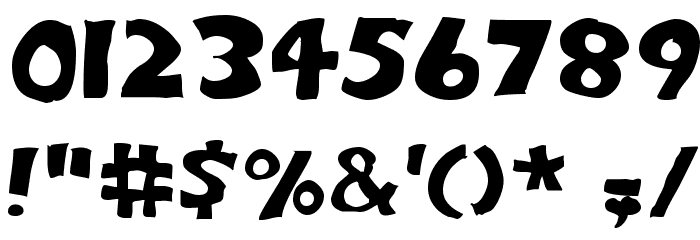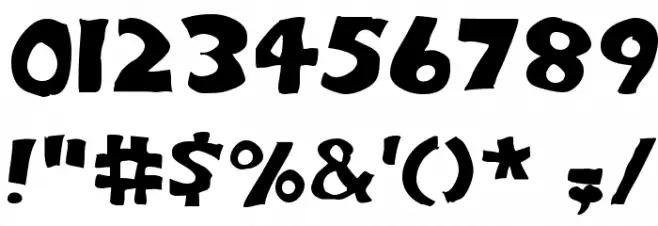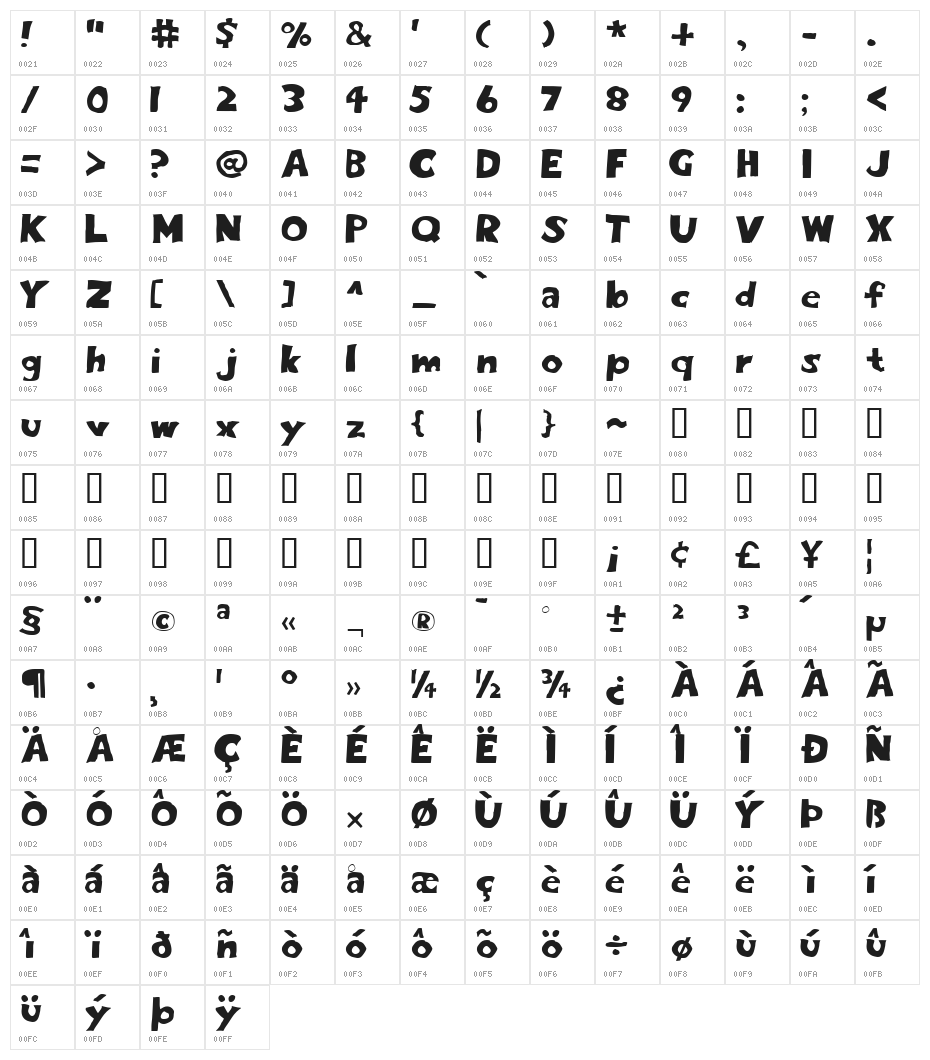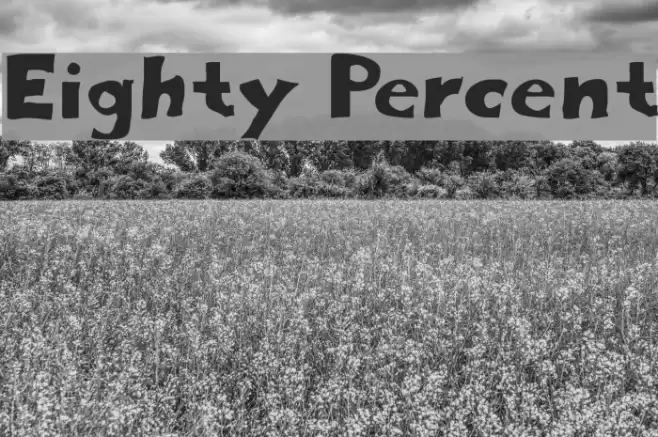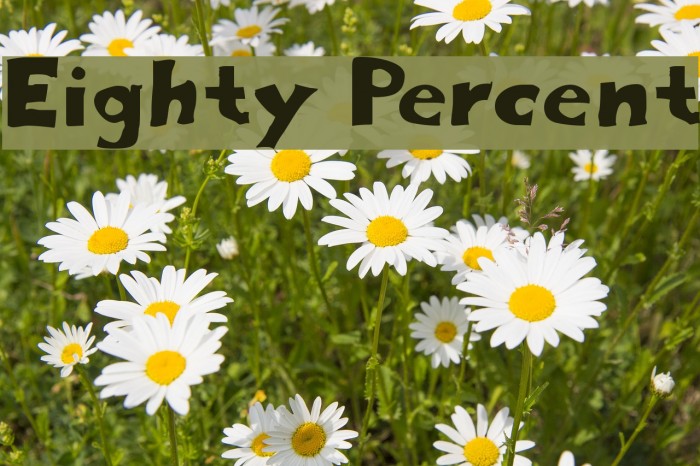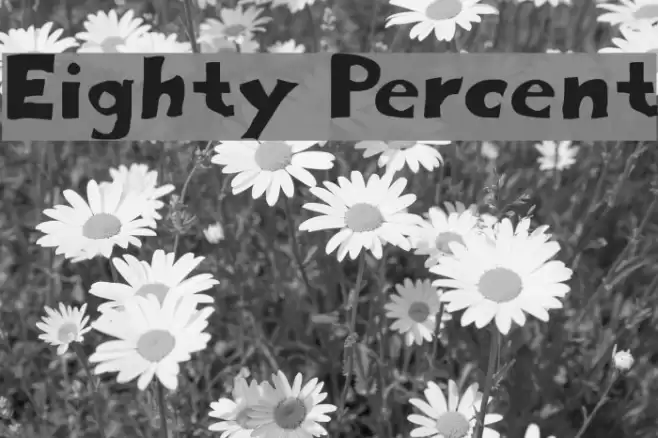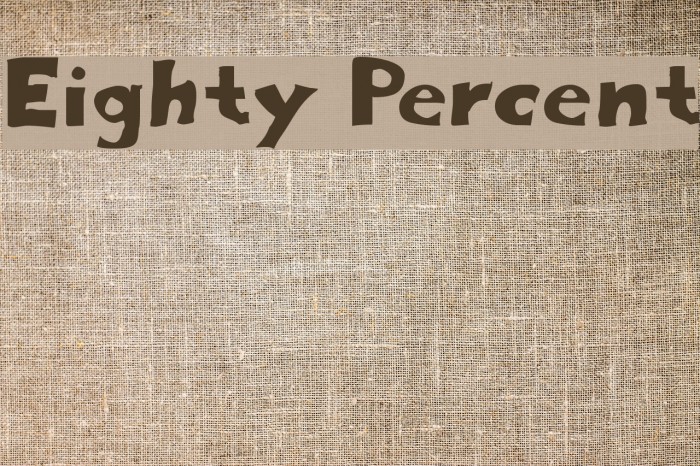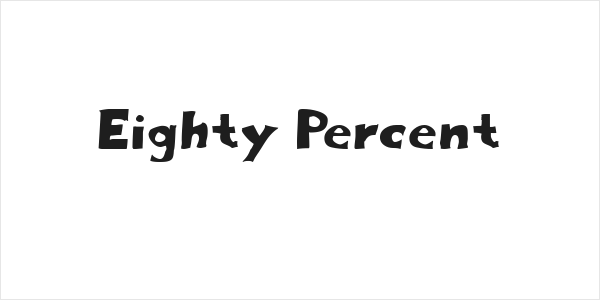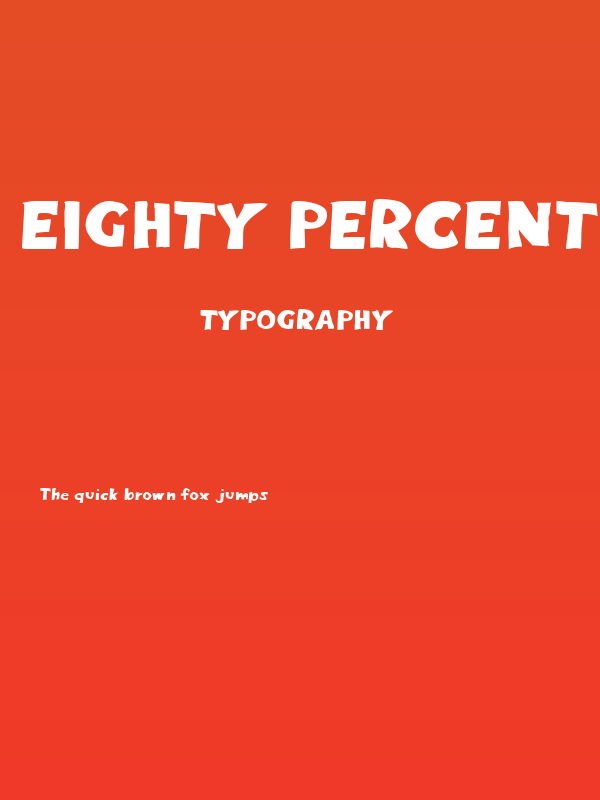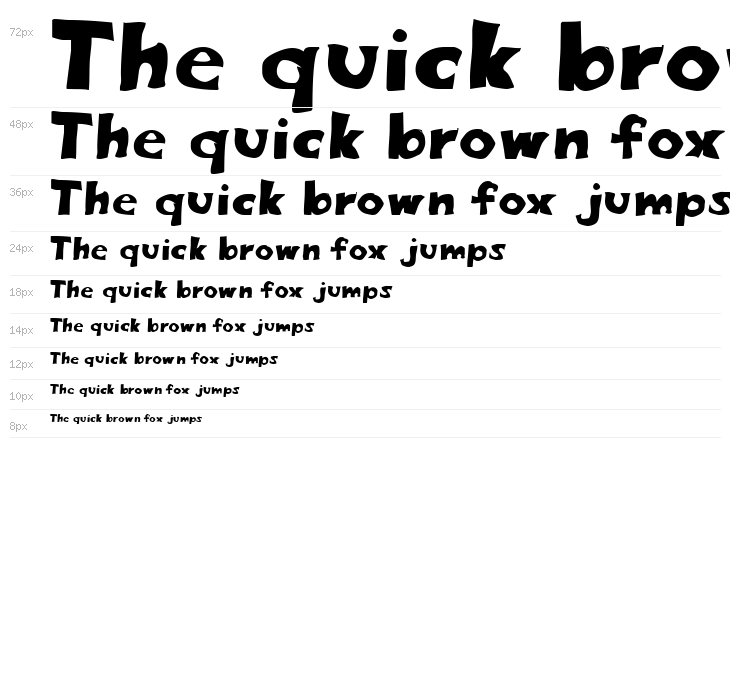
Eighty Percent Font
Eighty Percent Description
This font features a bold and playful design with a hand-drawn aesthetic. The characters are irregular and slightly tilted, giving them a whimsical and dynamic appearance. The strokes are thick and uneven, contributing to a casual and informal style. The uppercase and lowercase letters maintain a consistent visual theme, while the numbers and special characters complement the overall look. This font's unique style makes it stand out, ideal for projects that require a fun and engaging visual element.
| Overall Style | Playful, Casual, Hand-drawn |
| Proposed Projects | Ideal for children's books, playful branding, casual posters, and creative social media graphics. |